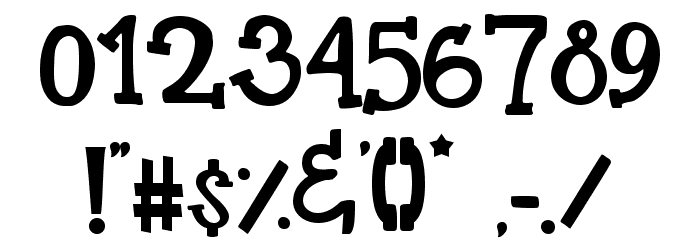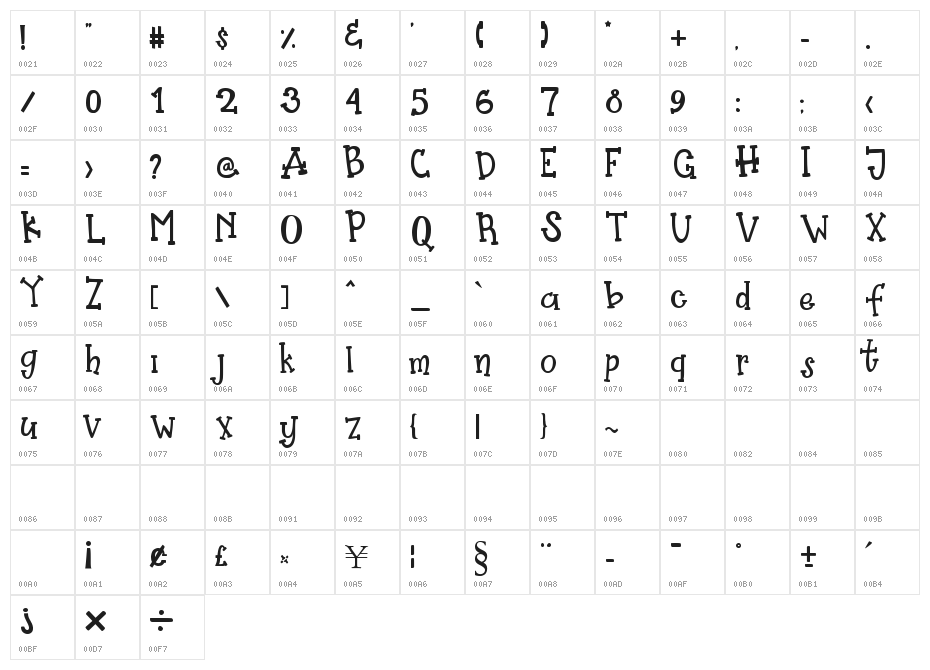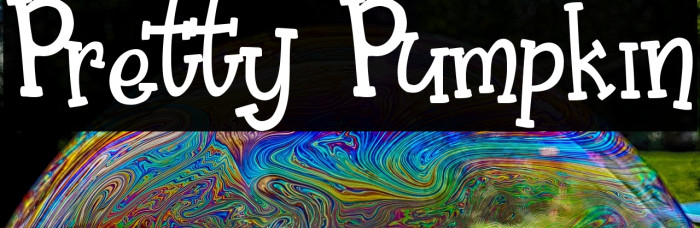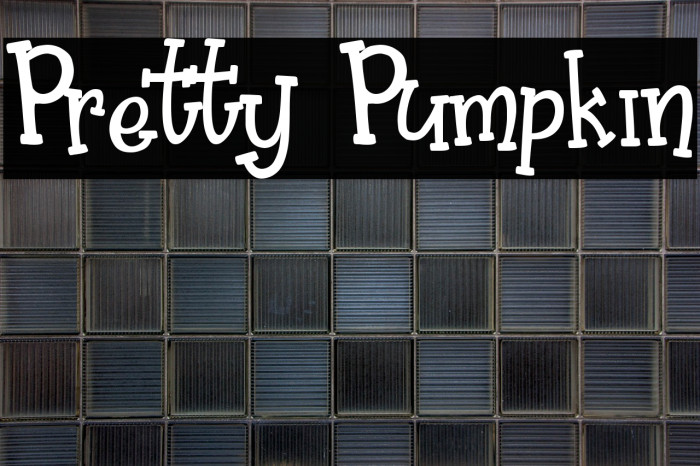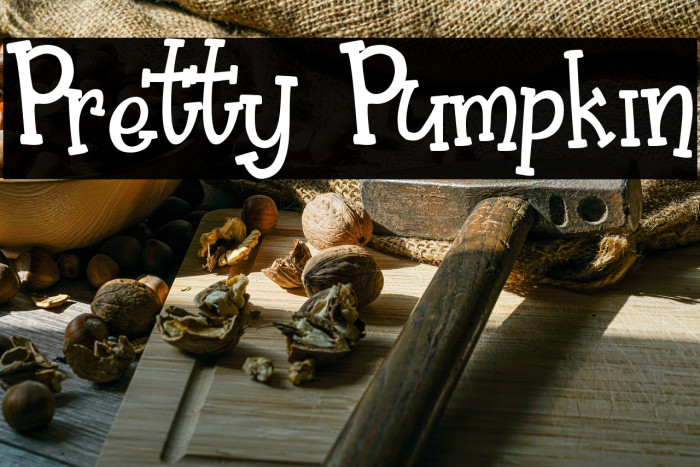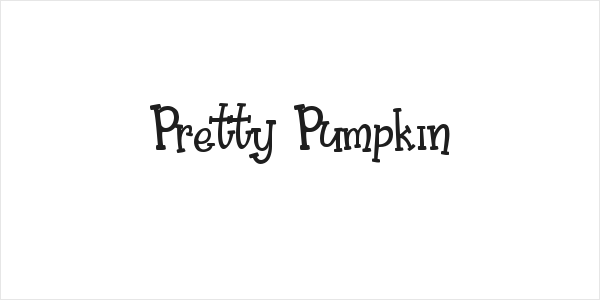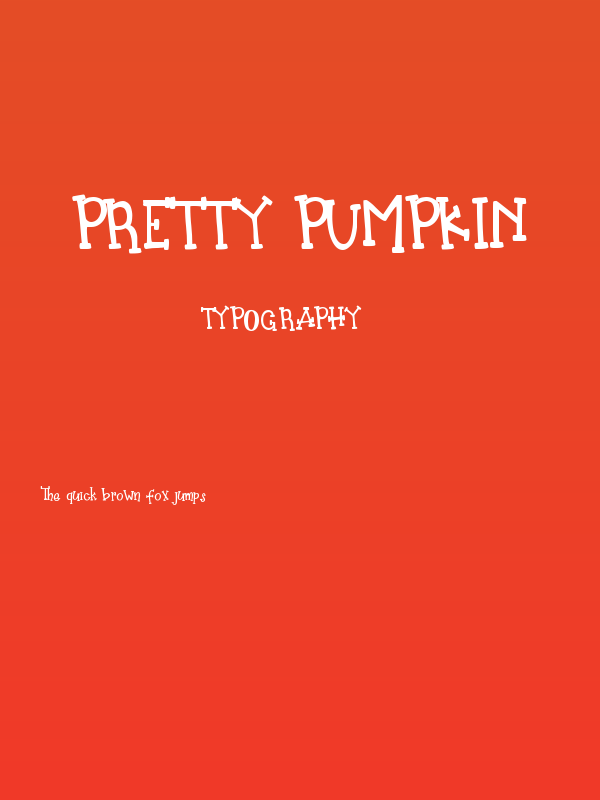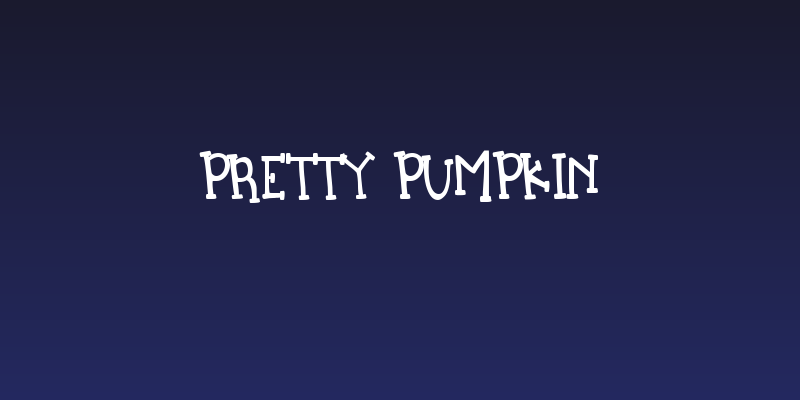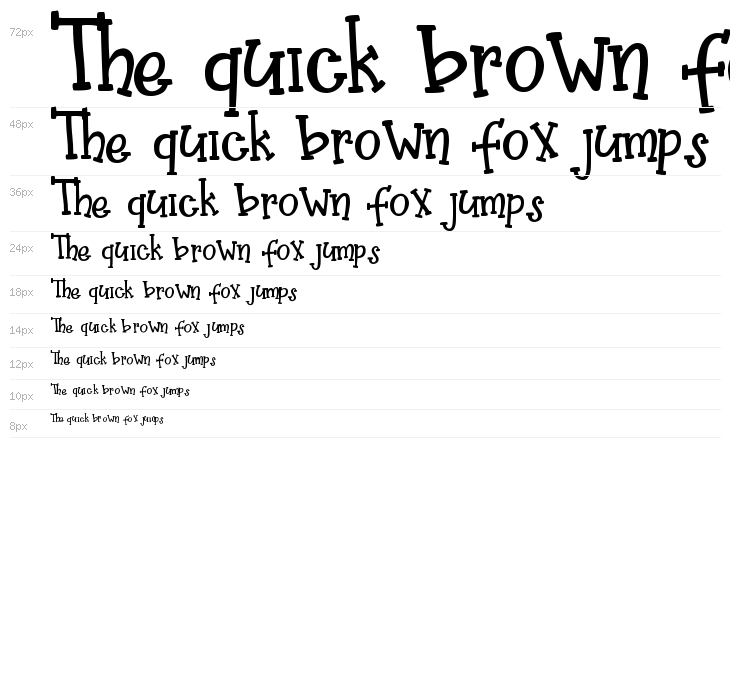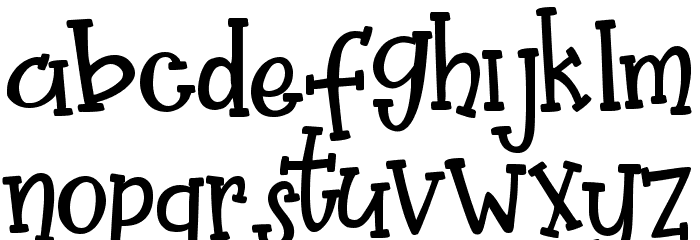
Pretty Pumpkin Font
Pretty Pumpkin Description
This playful and whimsical font features a hand-drawn style with a quirky, uneven baseline that gives it a lively and energetic feel. The characters are bold and slightly irregular, with exaggerated serifs and varying stroke widths that add to its charm. The uppercase letters are tall and commanding, while the lowercase letters have a more relaxed and casual appearance. Numbers and special characters maintain the same playful aesthetic, making this font versatile for creative projects. The overall design is reminiscent of a fun, cartoonish style, perfect for adding a touch of personality and humor to any text.
| Overall Style | Whimsical, Playful |